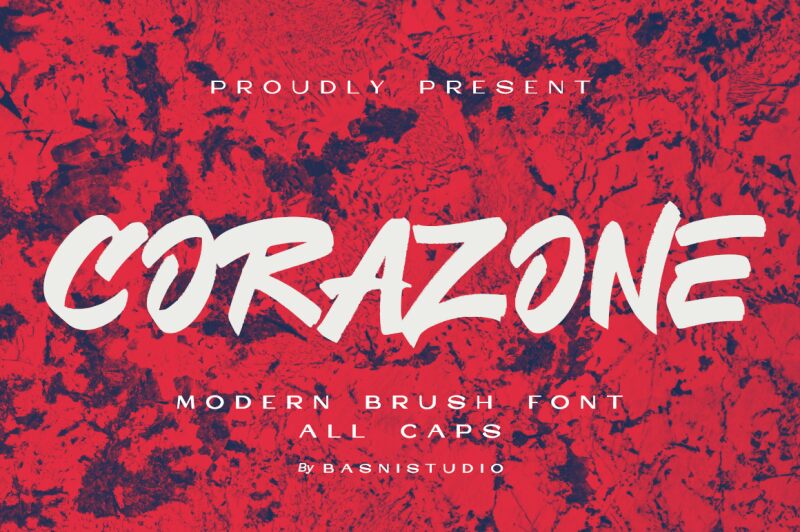
Corazone font is a free brush font designed by Basni.std. The font is a fresh, modern, energetic typeface inspired by the urban and contemporary atmosphere of the big city. It is highly dynamic and expressive. Its natural brush style and casual look provides a unique way to engage your audience.
With an impressive and expressive style, this bold and impactful brush font is perfect for branding. It can be used in everyday editorial design applications, posters, banners, and magazine covers. The artistic strokes are also eye catchers if used on package design or commercial advertising. Its unconventional handwriting tone of a new age gives a unique urban style to the project at hand.